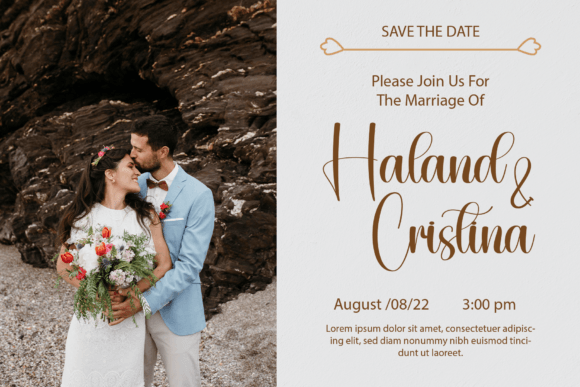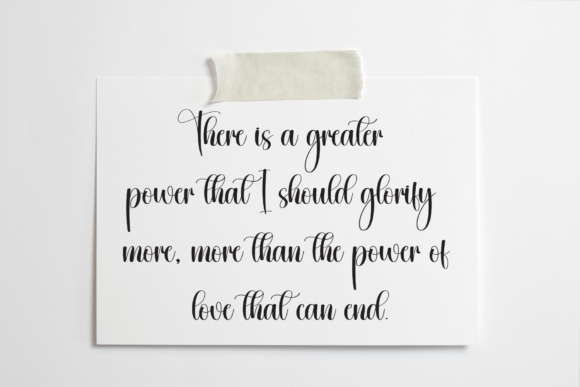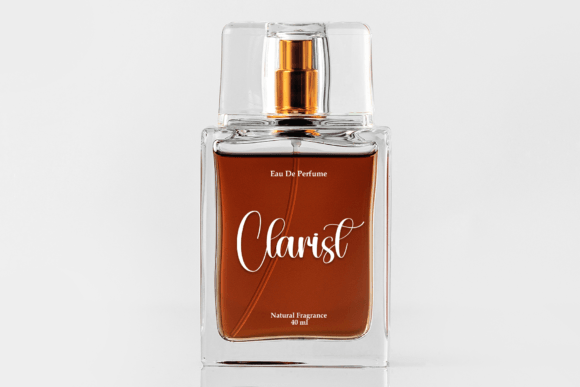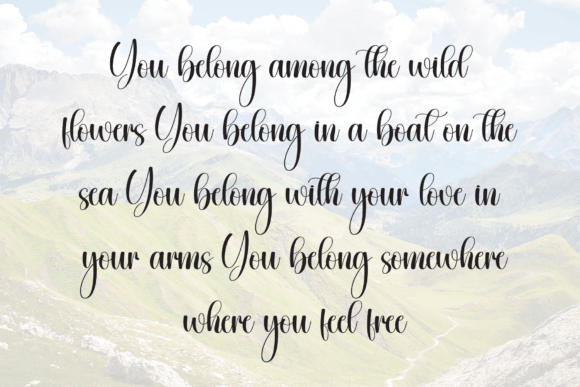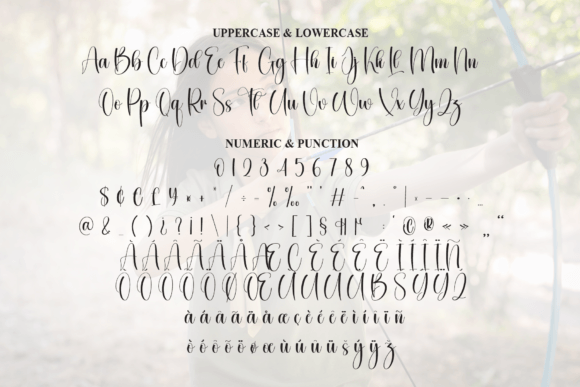
Find Your Target with the Perfect Font
Imagine you’re brainstorming ideas for a friend’s birthday party, and you need the perfect invitation to set the tone for a fun-filled celebration. You scroll through your font library, searching for something that captures the playful spirit of the occasion. Suddenly, you stumble upon a font that makes your heart skip a beat – its smooth, flowing strokes and whimsical curves transport you to a world of pure joy.
This is where the Archery Font comes in – a charming handwritten typeface designed to spread warmth and friendliness wherever it’s used. Whether you’re creating invitations, packaging, or social media graphics, this font is sure to bring a smile to your audience’s faces. As a designer, you know the value of a well-chosen font in setting the tone for your brand’s message. With Archery Font, you’ll find a trusted ally in crafting designs that truly connect with your audience.
Archery Font Key Features
- Unique Hand-Drawn Style: Archery Font features a distinctive, hand-drawn design with intricate details and flourishes, making it perfect for adding a touch of personality to your designs.
Archery Font Review
At first glance, Archery Font seems like an intriguing choice for designers looking for a unique and bold typography style. ✨ Here are some aspects that work well in this font:
- Distinctive aesthetic: Archery Font boasts a distinct, hand-drawn style that’s sure to grab attention.
- Customization options: The font offers various weights, widths, and styles to help designers adapt it to their specific needs.
- Good legibility: Despite its bold appearance, the font remains relatively easy to read, making it suitable for body text.
- ✨ Limited language support: Archery Font might not cover all the languages you need, which could be a problem for international projects.
- ⚠️ Overuse: Due to its bold and attention-grabbing style, Archery Font might become too overwhelming if used extensively throughout a design.
- ⚠️ Limited pairing options: The font’s unique style might make it challenging to pair with other fonts, potentially limiting design flexibility.
Overall, Archery Font is a solid choice for designers who want to add a touch of uniqueness to their work. While it has its limitations, it can be a great addition to the right project. Just be mindful of its potential drawbacks and use it judiciously.
Archery Font is perfect for:
1. Creating a unique and playful title or heading.
2. Adding a touch of whimsy to your branding or marketing materials.
3. Designing a fun and engaging presentation or brochure.